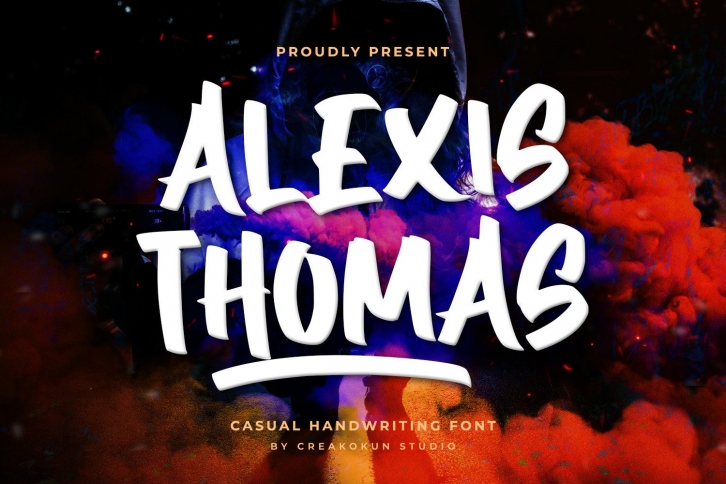
Alexis Thomas is a casual and paint brushed display font. It is suitable for designs such as t-shirts, sportswear, logos, advertisements, clothing, and more.